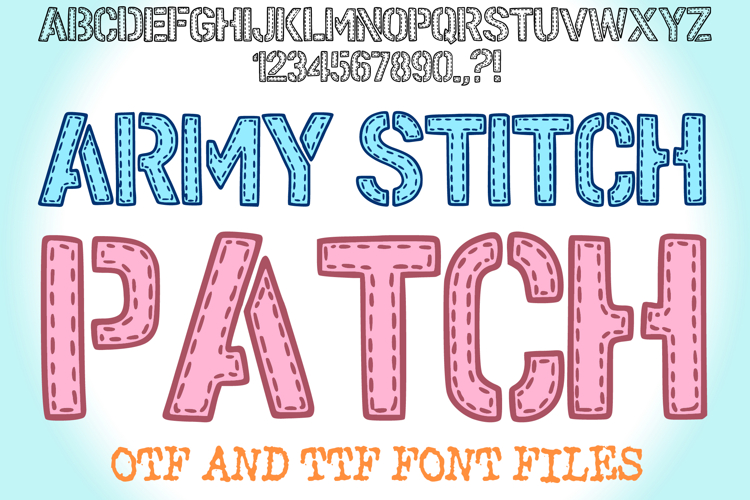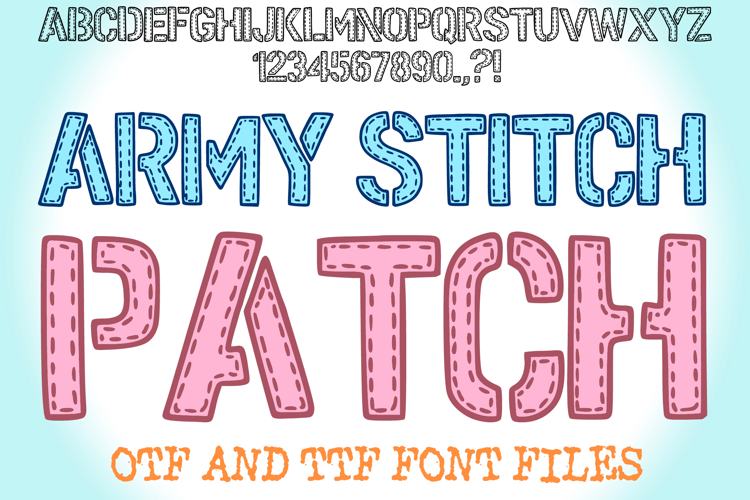
Army Stitch Patch Alphabet Lettering ABC Embroidery Font
Bring a fun, handcrafted touch to your next creative project with Army Stitch Patch Font — a playful, stitched-style typeface that looks just like embroidered patches! This bold and charming font combines military-inspired lettering with a cozy hand-sewn aesthetic, making it perfect for everything from kids’ crafts and apparel designs to logo branding, Cricut projects, and scrapbooking.
Each letter in Army Stitch Patch Font is carefully designed with faux stitching details that mimic real embroidery thread — ideal for creating a soft, handmade feel. Whether you’re designing for fabric labels, t-shirt prints, DIY projects, or digital artwork, this unique font will add personality and texture to your typography.